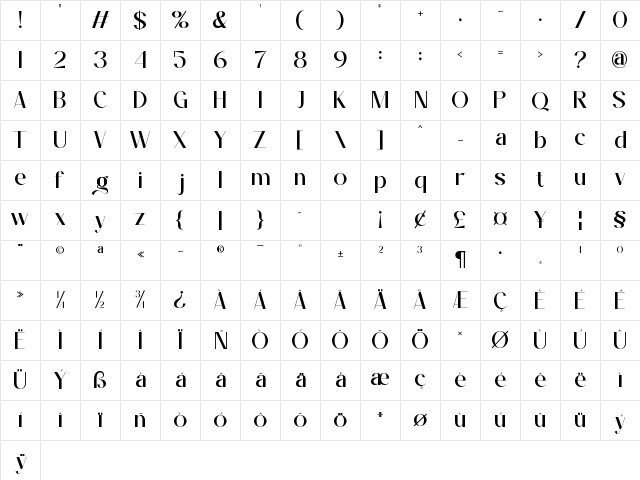
Bagins Regular Free Font
Bagins Regular
Designer: SlideShoot 2022
Design Context for Bagins
Bagins is a composed and adaptable typeface that performs quietly and consistently across a wide range of design contexts.